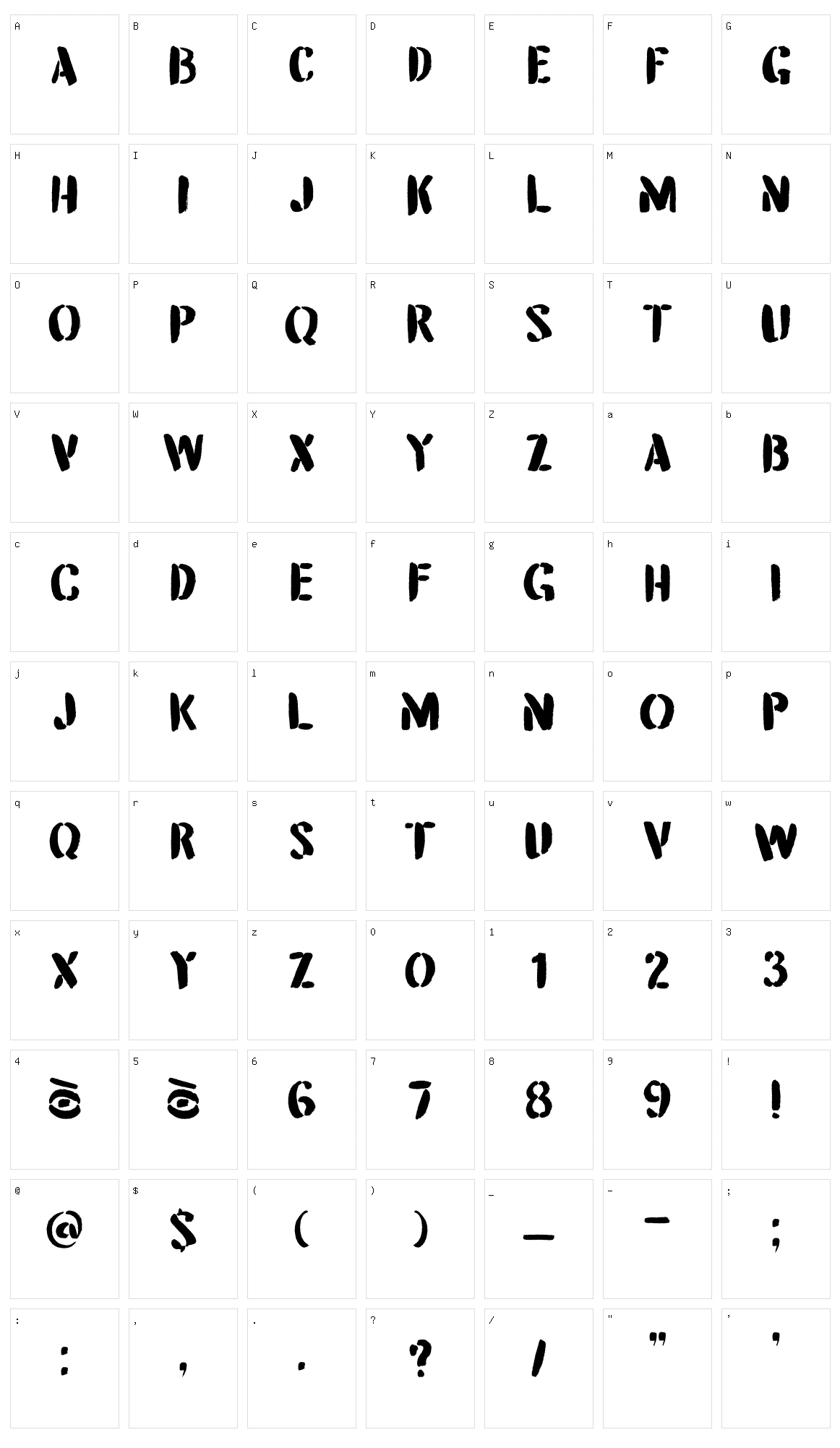
The free font DK Attention Seeker is carefully designed by Hanoded, showcasing a thoughtful balance of creativity and usability and falls under the Stencil font style. When you download the ZIP file, it contains only 234.89 KB of font files, making it lightweight and quick to download. Please review the license details below to understand permitted usage and distribution rights. If license information is not available, we recommend using this font for personal projects only or contacting the author directly for commercial usage permissions.